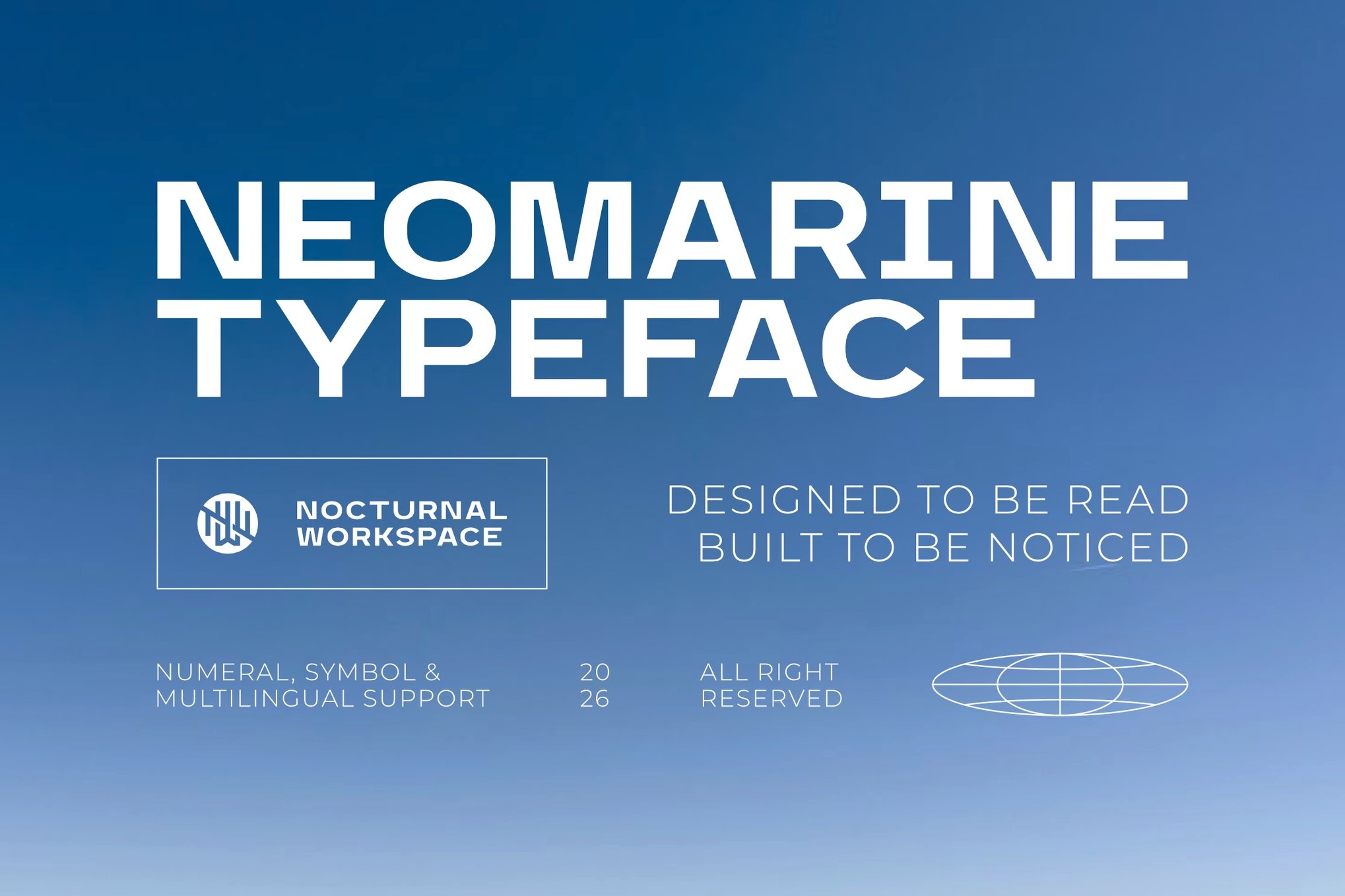
Neomarine – Modern Sans Serif Font
Neomarine – Modern Sans Serif Font is a flexible and reliable font created to fit multiple design needs, from branding and packaging to social media and editorial layouts. Designed to stand out, Neomarine works perfectly for headlines, logos, posters, branding projects, album covers, merchandise, and music-related designs. Its funky and energetic style makes it ideal for creative projects that need personality and rhythm.